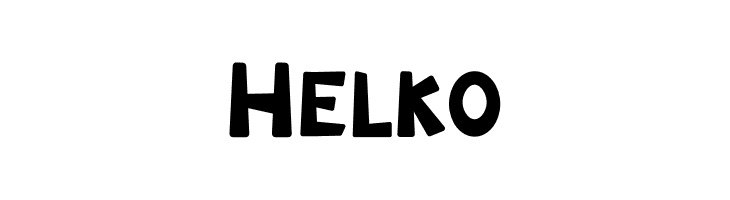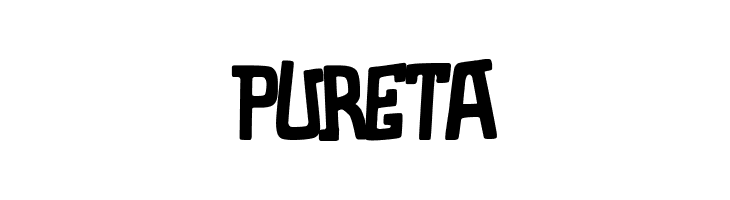
( Måns Grebäck - www.mansgreback.com )
A bold, expressive script font with decorative swirls and high contrast.
( Fonts by Khurasan™ )
A bold, rounded font with a playful, hand-drawn appearance.
A bold, jagged font with a distressed, energetic style.
( PutraCetol Studio - Putra Novembria Candra Kusuma - creativemarket.com/putracetol )
An elegant script font with flowing, cursive letterforms and decorative flourishes.
( graphicmarble - Emanuel Istvan - www.behance.net/graphicmarble )
A bold, angular font with a futuristic and dynamic style.
( Fonts by Khurasan™ )
A bold, playful font with a hand-drawn, distressed texture.
( Fonts by teresagcym )
A bold, rounded handwritten font with a playful and casual style.
A bold, angular font with geometric elements and a modern aesthetic.